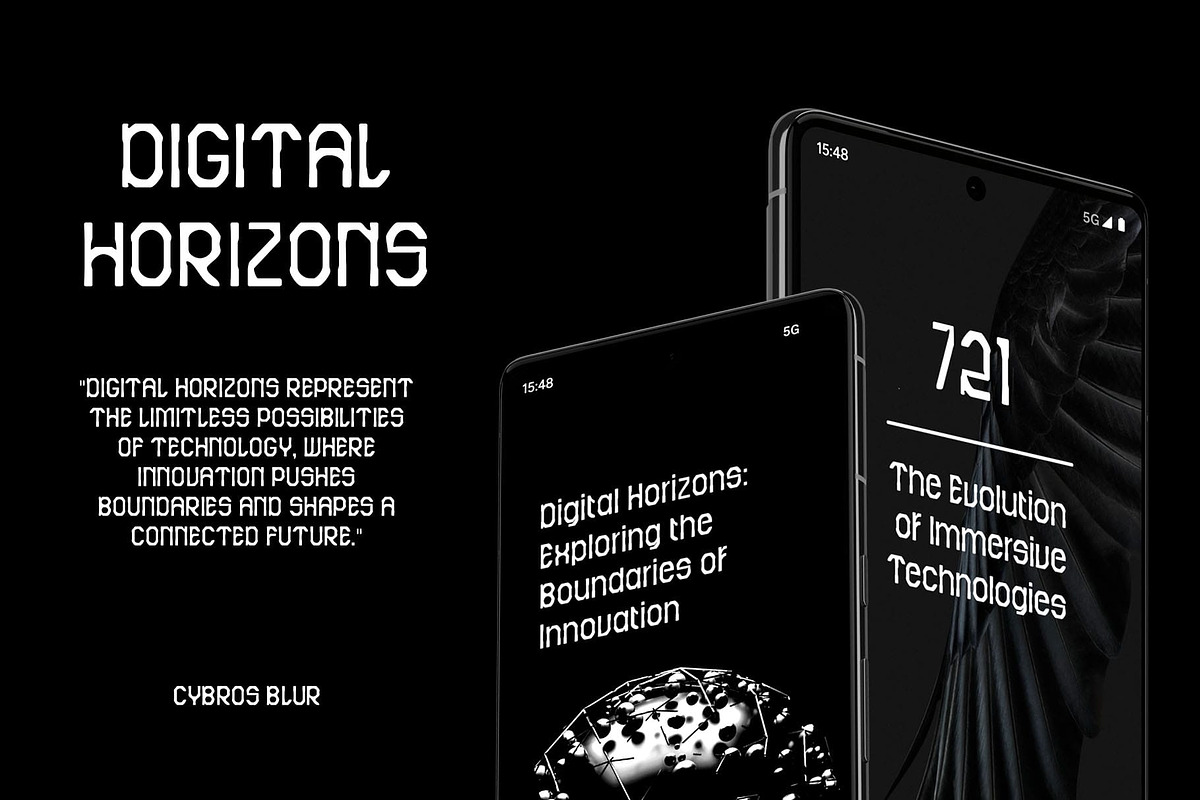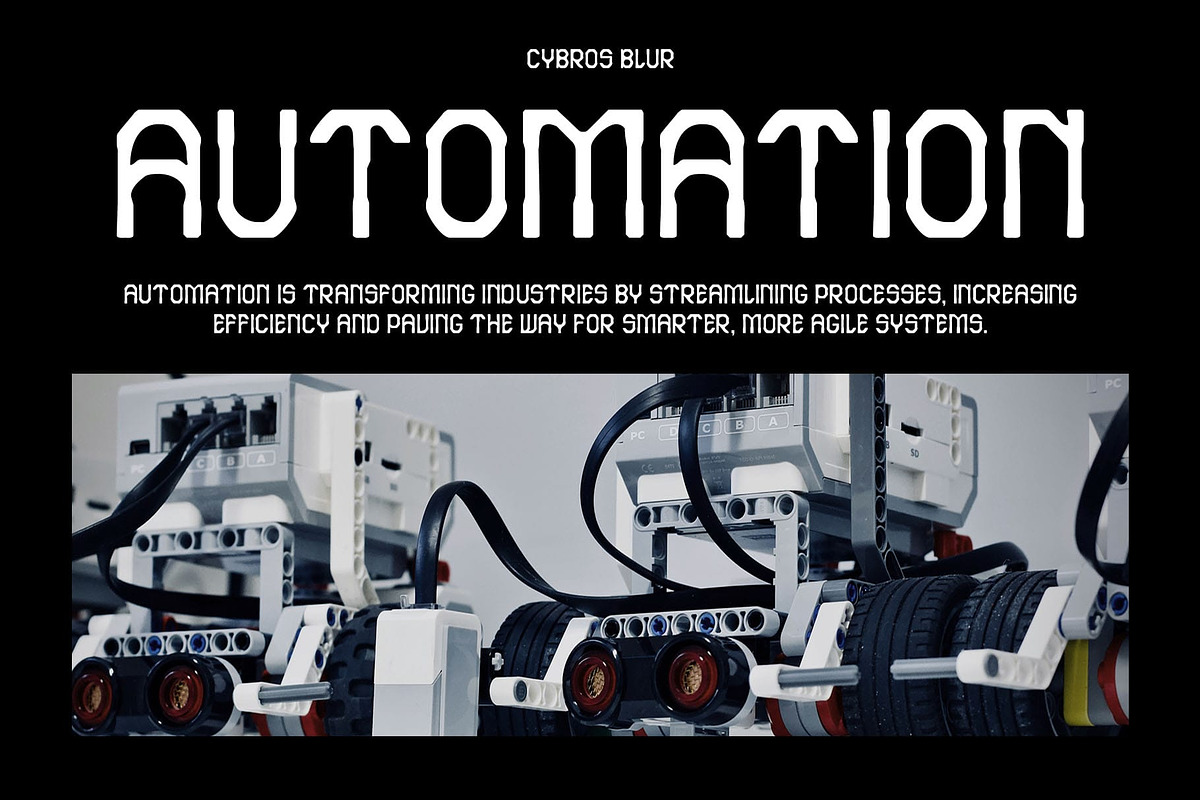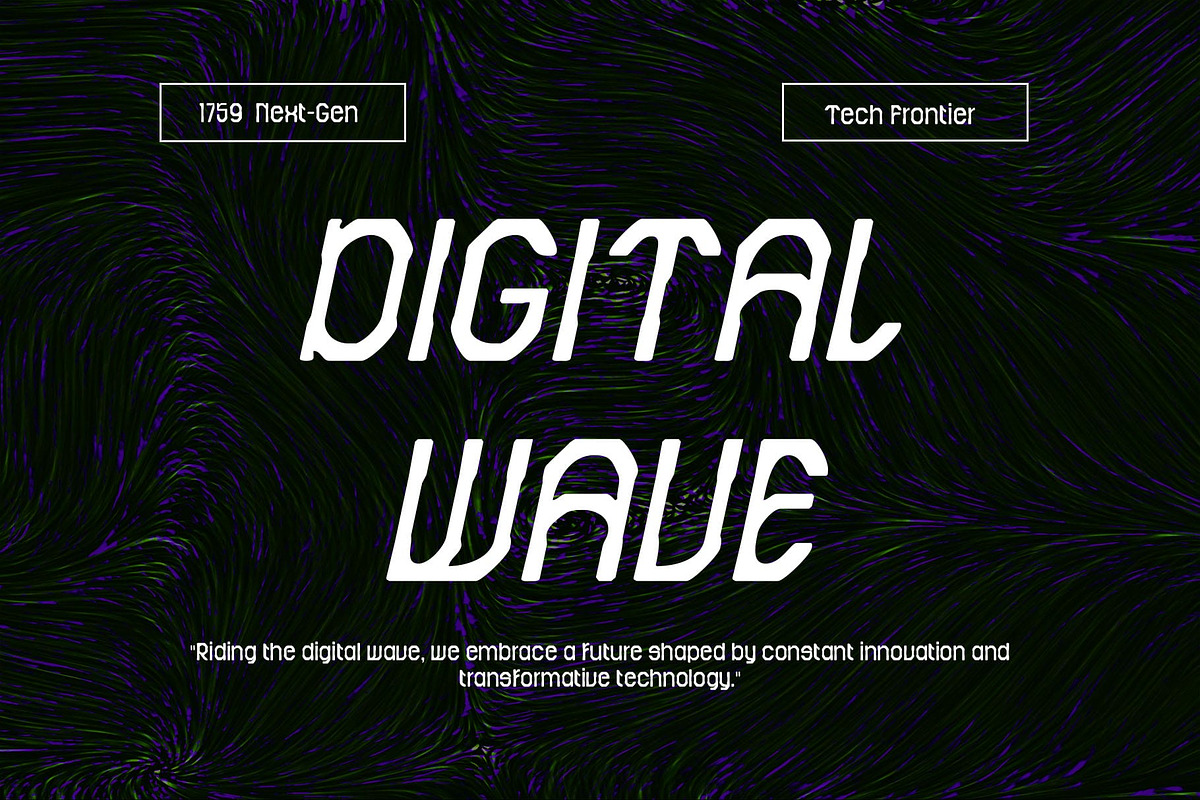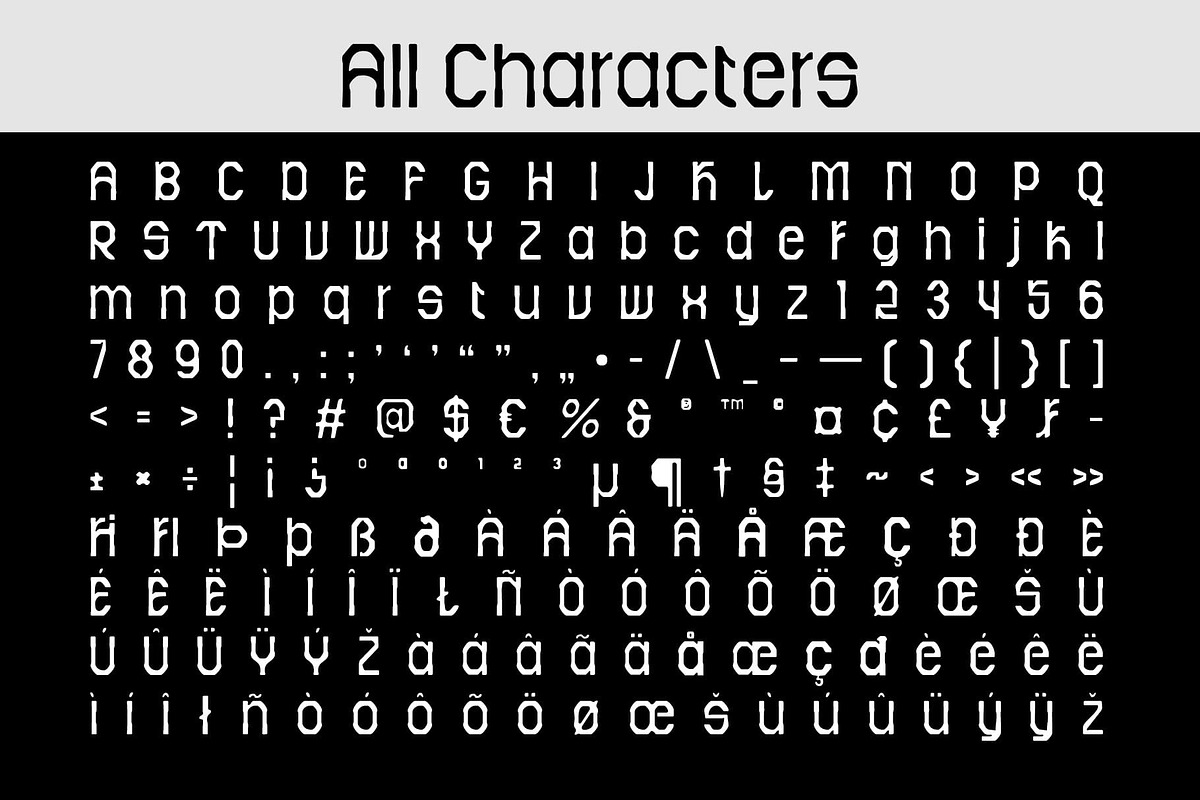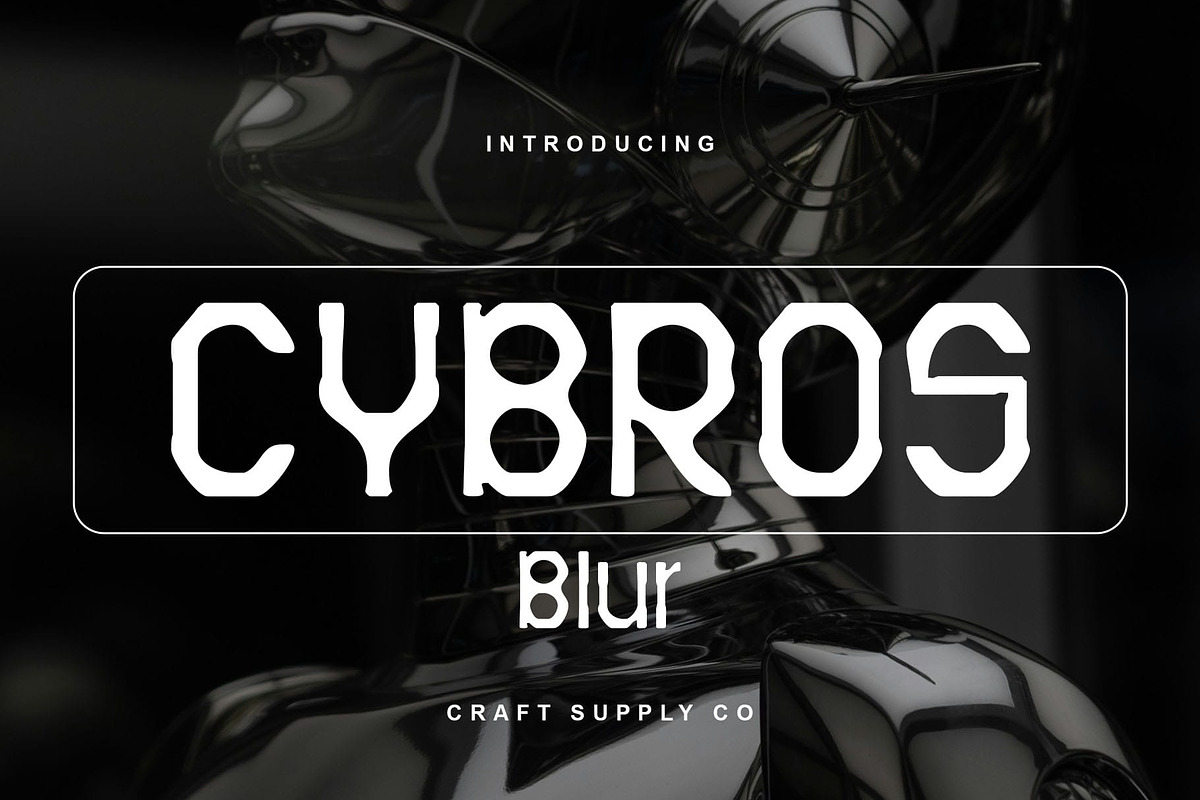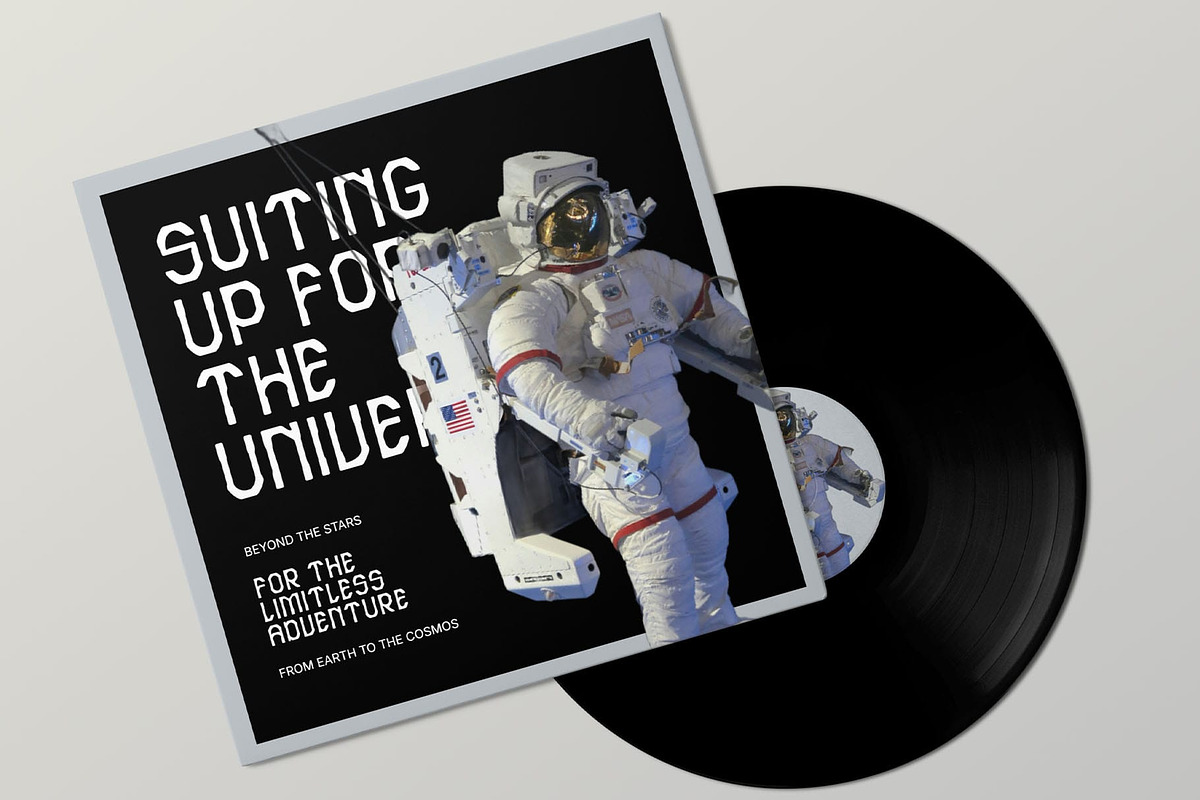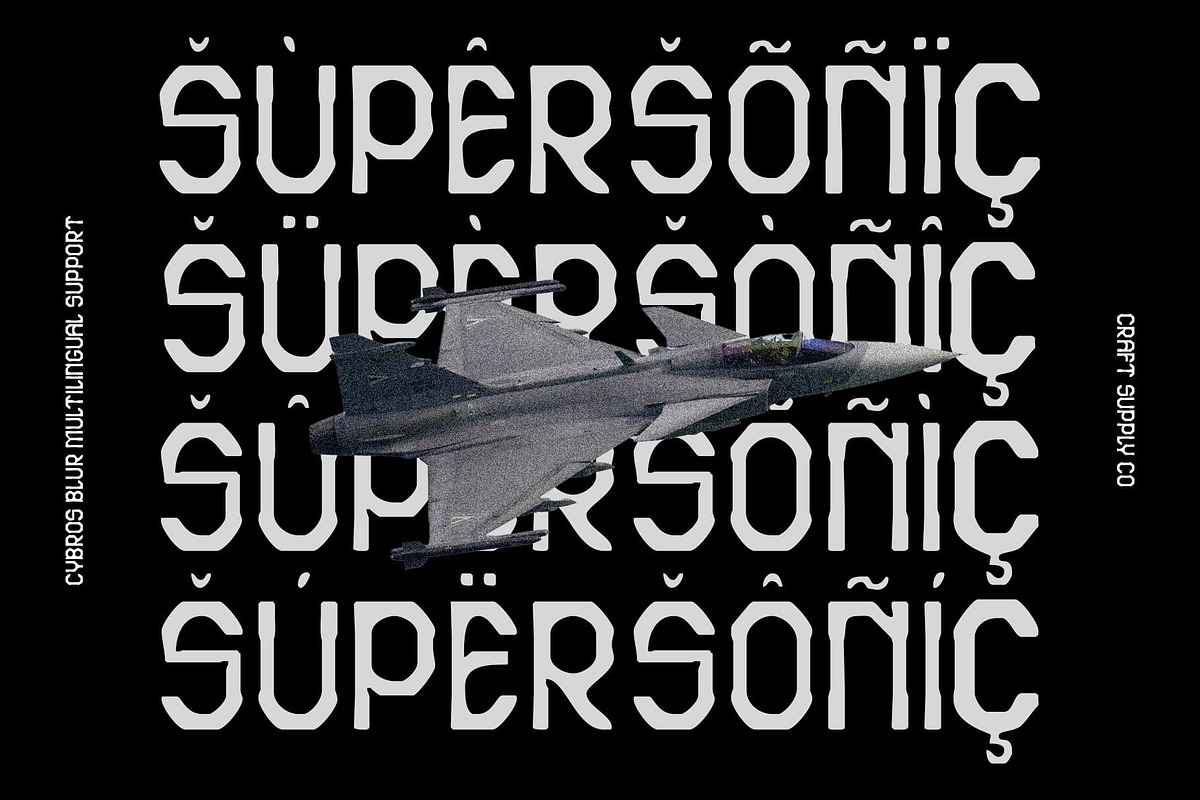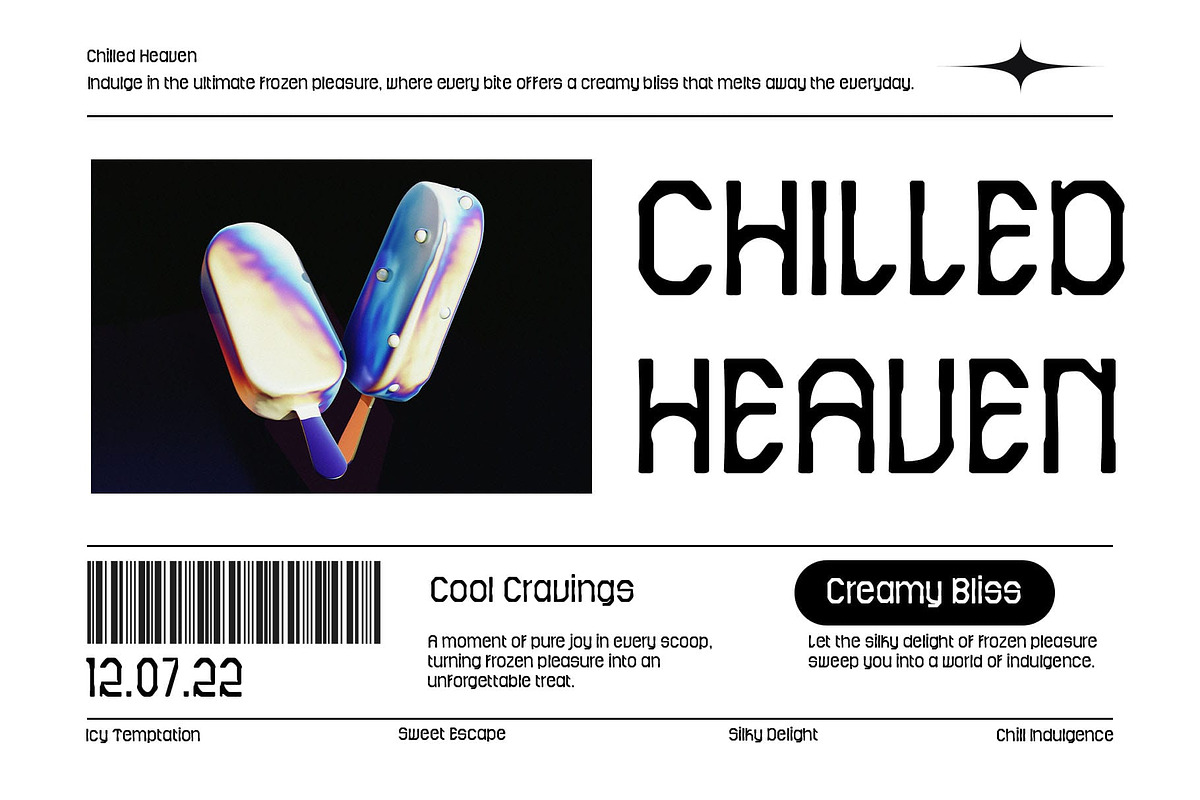
Cybros Blur
Cybros Blur Font: A Futuristic Display Font with Dynamic Motion
Sleek and Innovative Design Cybros Blur is a modern display font that combines sleek, streamlined lines with a futuristic design, making it an ideal choice for projects that demand a cutting-edge, high-tech look. Its clean, sharp letterforms evoke a sense of innovation, while the unique blur effect adds an extra layer of movement and dynamism to each character, creating a visually captivating experience.
Blurred Effect for Added Depth and Motion The blur effect enhances the futuristic feel of the font, making it appear as though the text is in motion or emerging from the digital space. This effect adds depth, giving the font a fluid, high-tech quality that’s perfect for conveying a sense of forward-thinking technology and digital advancement.
Perfect for Digital and Tech Designs With its strong, sleek lines and dynamic blur, Cybros Blur is tailor-made for digital designs, tech branding, and any project that requires a modern, stylish aesthetic with a sense of motion. Whether you’re working on websites, apps, or promotional materials, this font is perfect for delivering a bold and innovative message.
Ideal for High-Tech, Futuristic Projects Cybros Blur is the ideal font for anyone seeking to create futuristic and tech-forward designs that still maintain a stylish, contemporary look. From digital advertising to cutting-edge tech branding, this font ensures your message stands out with sophistication, speed, and motion.
- Cybros Blur Regular
- Cybros Blur Italic